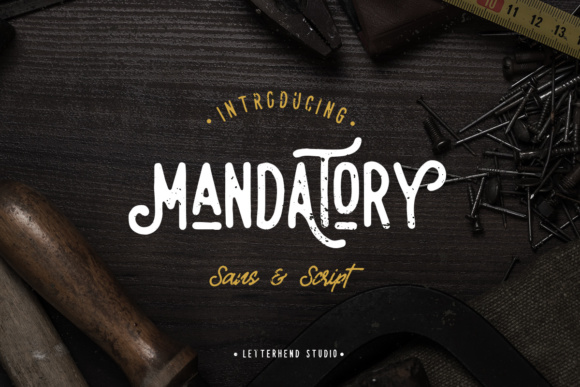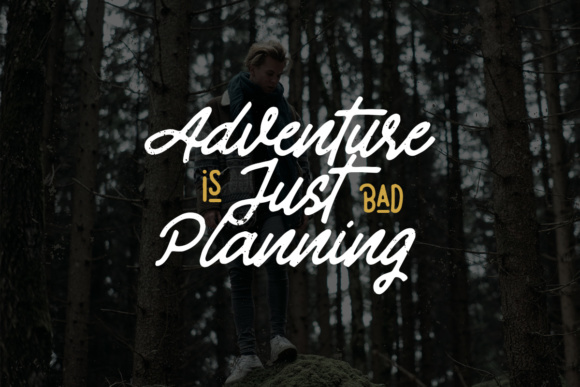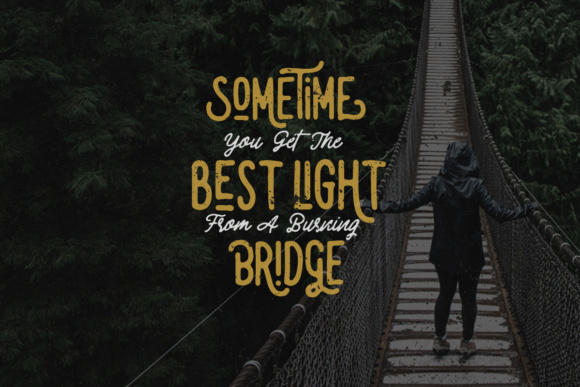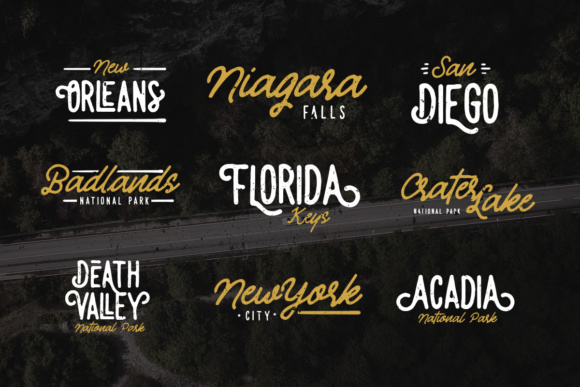
Mandatory Duo Font
About the Mandatory Duo Font
Presenting Mandatory Duo Font, a unique and stylish typeface that will make your work stand out. Mandatory is a unique typeface duo with a retro feeling. Perfect to use for logotypes, badges, board signs, posters, headlines and much more!
Mandatory Duo’s retro-inspired boldness makes it ideal for headlines, branding applications needing a strong visual impact, and posters requiring immediate attention. Its condensed nature, however, makes it less suitable for body text or lengthy paragraphs, where readability suffers. Avoid using it in user interfaces (UI) where legibility at small sizes is critical.
The font’s core personality is assertive and confident, yet retains a playful vintage charm. This makes it perfect for brands conveying a retro-modern aesthetic, those with a strong heritage, or products aiming for a nostalgic yet contemporary feel. Think breweries, record labels, or clothing lines targeting a younger audience with an appreciation for classic design.
Pairing Mandatory Duo with a clean sans-serif like Open Sans for body text provides excellent contrast and readability. For a more playful approach, consider pairing it with a rounded geometric sans-serif. Conversely, a classic serif like Garamond can add a touch of sophistication to balance its retro boldness.
Mandatory Duo Font Usage Examples
Mandatory Duo Font Example